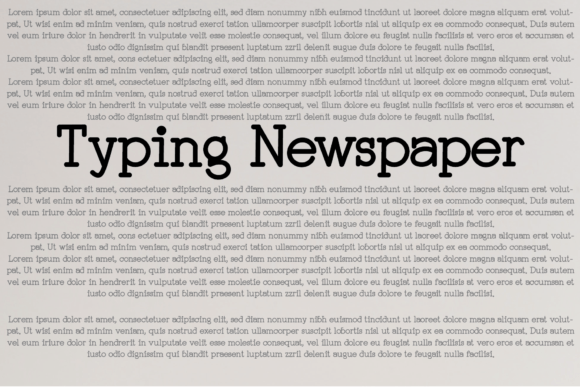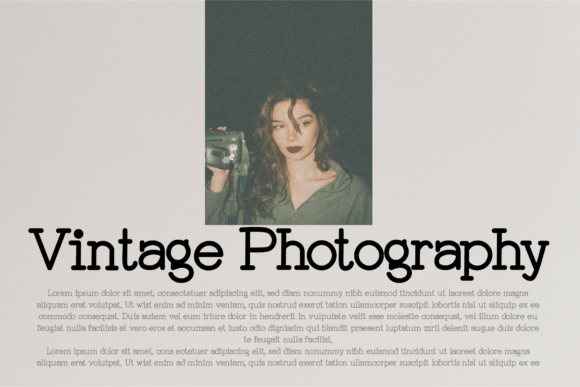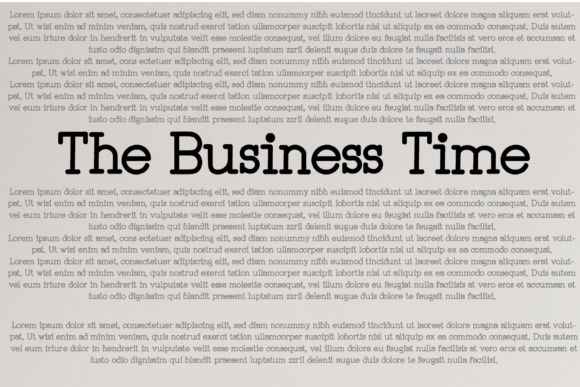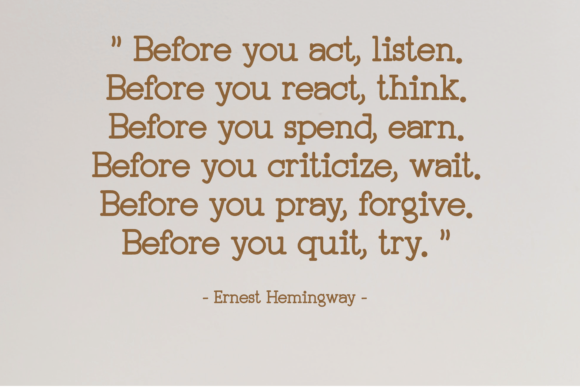
Vintage Typewriter Font
About Vintage Typewriter Font
The Vintage Typewriter Font Download is a refined handwritten typeface that carries the charm of classic writing tools while offering a modern impression. Its balanced flow and elegant strokes create a look that is both nostalgic and contemporary, making it perfect for creative projects that need a touch of sophistication.
With graceful letterforms that mimic authentic handwriting, this font adds warmth and personality to any design. Whether you are creating digital artwork, printed materials, or branding, the Vintage Typewriter Font Download ensures your message is expressed with style and clarity.
Features of Vintage Typewriter Font
When you choose to download the Vintage Typewriter Font, you gain access to a variety of professional features that enhance usability and creativity:
• Elegant handwritten script inspired by typewriter aesthetics
• Full uppercase and lowercase alphabet
• Numbers, punctuation, and symbols included
• Multilingual character support for global projects
Best Uses for Vintage Typewriter Font
The Vintage Typewriter Font Download is versatile and adapts to many design needs. Here are some of the best applications:
• Wedding Invitations and Thank You Cards – Add elegance to memorable events
• Greeting Cards and Quotes – Share heartfelt messages with a personal touch
• Logos and Branding – Create a professional identity that stands out
• Business Cards and Stationery – Leave a refined impression with clients
• Posters and Advertisements – Capture attention with stylish script typography
This flexibility makes it suitable for both personal and professional projects. Its timeless charm enhances everything from intimate stationery to bold marketing campaigns.
Why Choose Vintage Typewriter Font?
Unlike generic handwritten fonts, the Vintage Typewriter Font Download combines the authenticity of handwritten script with a modern impression that feels current and professional. Its design strikes the perfect balance between playfulness and elegance, ensuring that it works across industries and design styles.
Designers love its adaptability. It looks as impressive on minimalist branding as it does on decorative event invitations. The smooth curves and balanced strokes make it easy to read while still maintaining artistic flair.
The Vintage Typewriter Font Download is more than just a font—it is a design tool that elevates your work. With its elegant handwritten style, it enhances wedding stationery, greeting cards, logos, advertisements, and so much more. Adding this font to your library ensures you always have a timeless, versatile typeface ready to bring your creative vision to life.